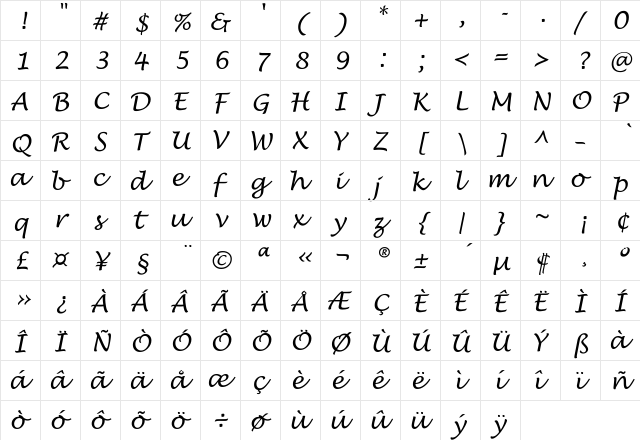
Saintgermain Script Regular
Design Context for Saintgermain Script Typeface
Saintgermain Script brings a calligraphic fluidity to the page — its connecting strokes and expressive curves give it an unmistakably human quality.
Font Pairing: Combine Saintgermain Script with a simple geometric sans for maximum contrast — the tension between flowing curves and clean structure is a classic typographic pairing.
Pro Tip: Pair Saintgermain Script with a clean sans-serif for supporting text. The contrast between fluid script and geometric structure creates an elegant typographic hierarchy.